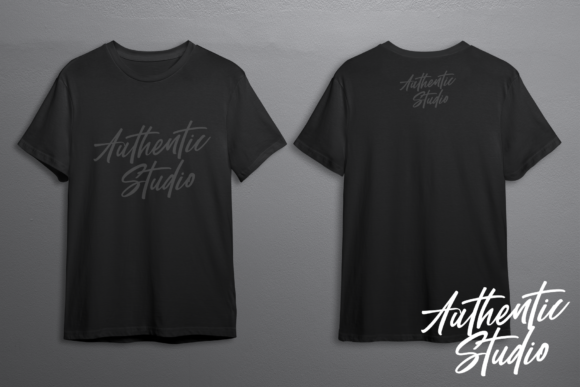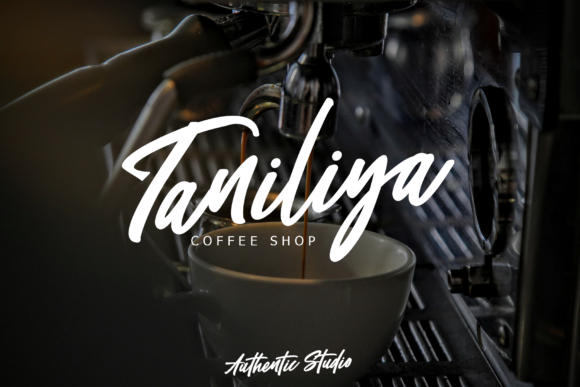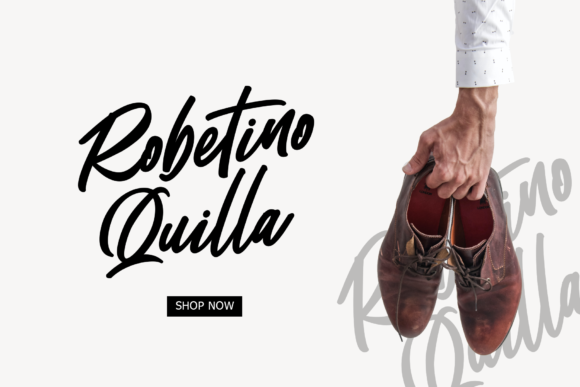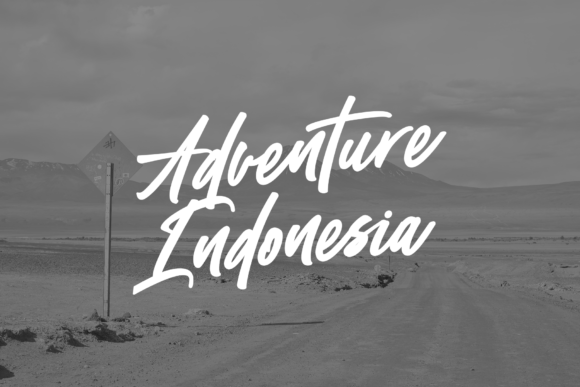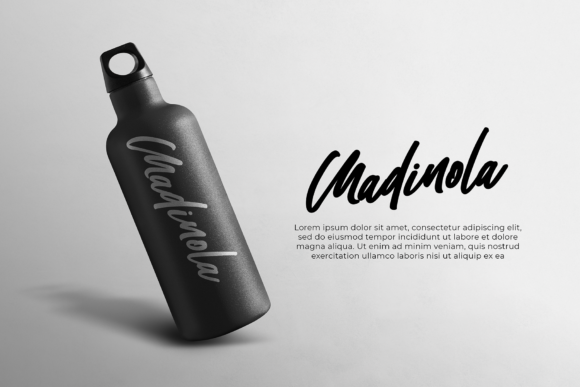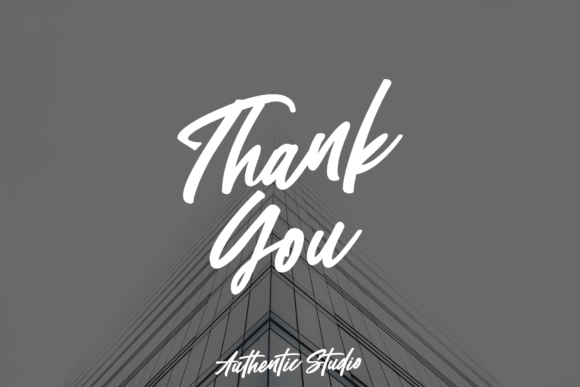
Introduction to Madinola Font
As a designer, you’ve been there – staring at a blank canvas, trying to come up with the perfect concept for your next creative project. You’ve got a vision in your head, but the words just aren’t translating onto the page. That’s where the right design resource can make all the difference. Enter the Madinola Font, a stunning script font that’s sure to elevate your work and leave a lasting impression.
With its urban fashion inspiration, the Madinola Font is the perfect addition to any design project. Whether you’re working on a logo, badge, or product packaging, this high-quality font is sure to add a touch of sophistication and personality. And the best part? It’s available for free download, making it an accessible design resource for creatives of all levels.
Key Features of Madinola Font
- Designed with a modern and sleek aesthetic, perfect for a variety of design applications
- Includes a range of characters and glyphs for versatility
Honest Review: Madinola Font
As a designer, I’m always on the lookout for high-quality fonts that can elevate my creative projects. I recently came across the Madinola Font, and I’m excited to share my honest review.
What works well: ✨ The Madinola Font has a unique and elegant design that makes it perfect for a variety of projects, from wedding invitations to branding materials. The font is also available for free download, which is a huge bonus for designers on a budget.
The font comes with a transparent background, making it easy to use on any design background. The font is also highly customizable, allowing you to adjust the size, color, and style to suit your design needs.
Here are some of the key features of the Madinola Font:
- Unique and elegant design
Limitations: ⚠️ The Madinola Font is only available in a few weights and styles, which may limit its versatility for some designers. Additionally, the font may not be suitable for projects that require a bold or sans-serif font.
Tips for Getting the Most Out of Madinola Font
Experiment with different font sizes, colors, and styles to create unique and visually appealing designs. Use the Madinola Font in combination with other design elements, such as images and graphics, to add depth and interest to your creative project.
Common Use Cases for Madinola Font
The Madinola Font is a versatile design resource that can be used in a variety of creative projects, including graphic design, branding, and digital marketing. Its high-quality design and transparent background make it an ideal choice for designers who want to create professional-looking designs quickly and easily.
Alternatives to Madinola Font
The Great Vibes Font is a beautiful, elegant script font perfect for creative projects that require a touch of sophistication. It’s ideal for wedding invitations, greeting cards, and other designs where a high-quality, handwritten feel is desired. When to use: For designs that require a romantic and elegant touch. How it compares to Madinola Font: Great Vibes Font has a more refined and polished look compared to the Madinola Font, which has a more playful and whimsical feel.